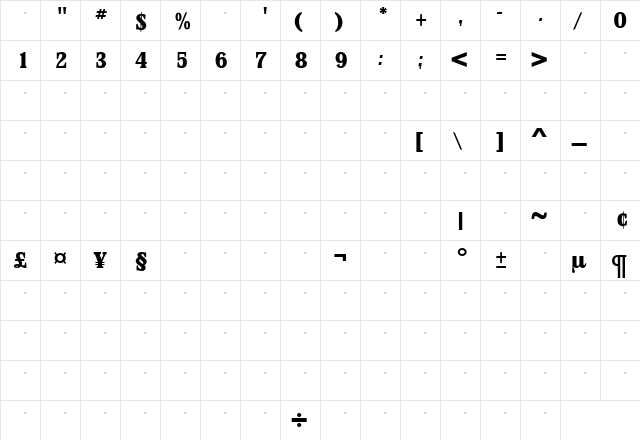
StirlingExtraBoldTab Roman
StirlingExtraBoldTab takes a measured approach to typography — its balanced proportions and neutral character make it a reliable workhorse for both digital and print work. Its bold stroke weight gives it real presence on the page.